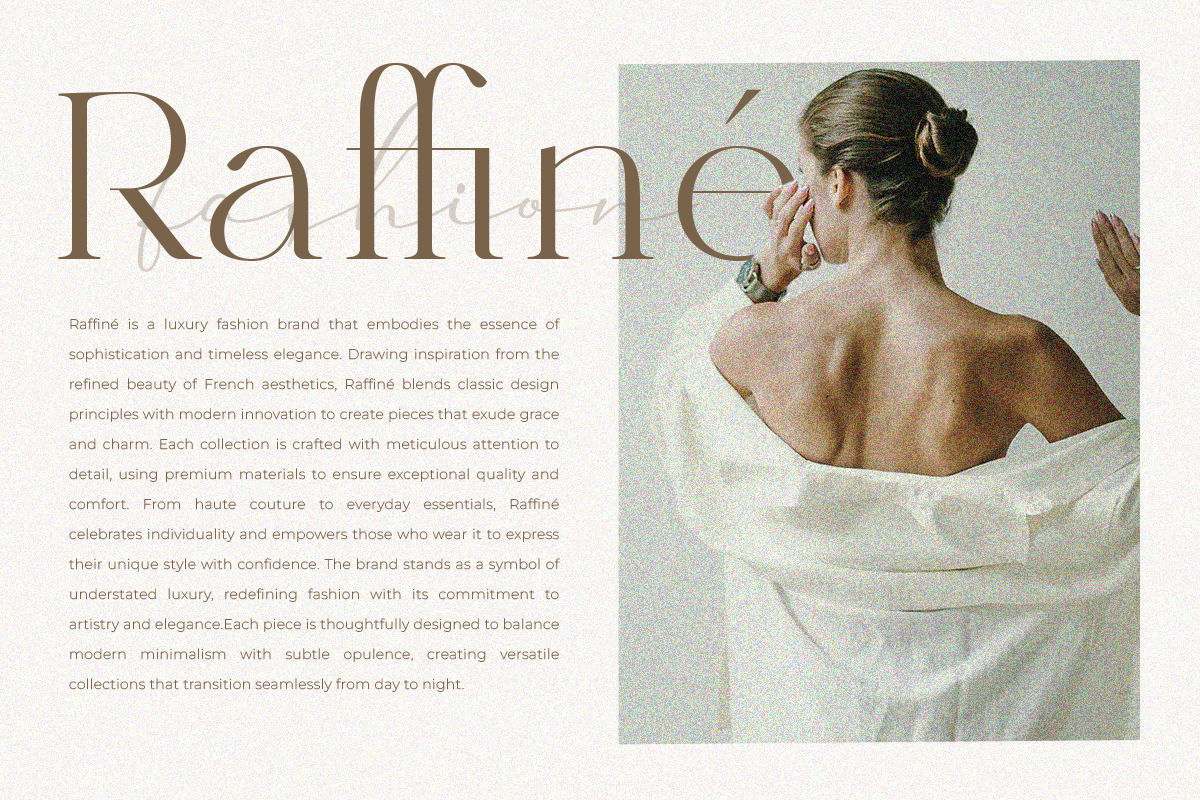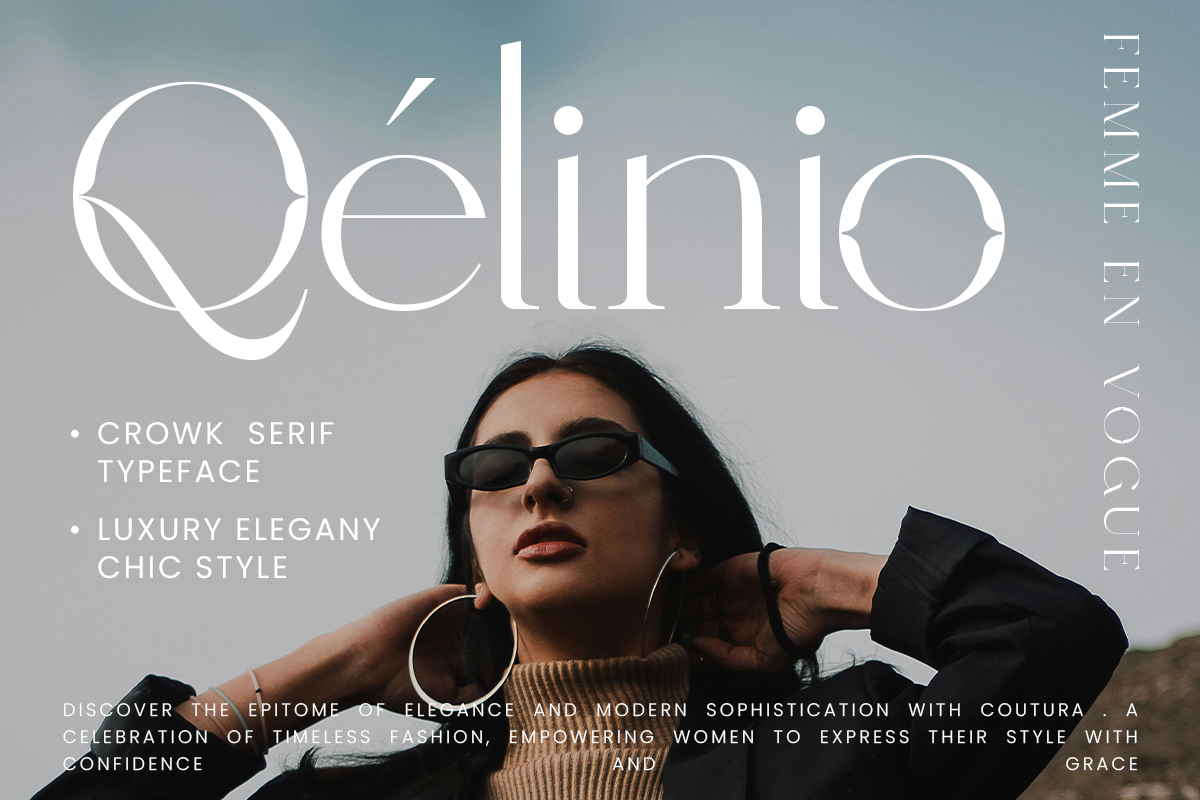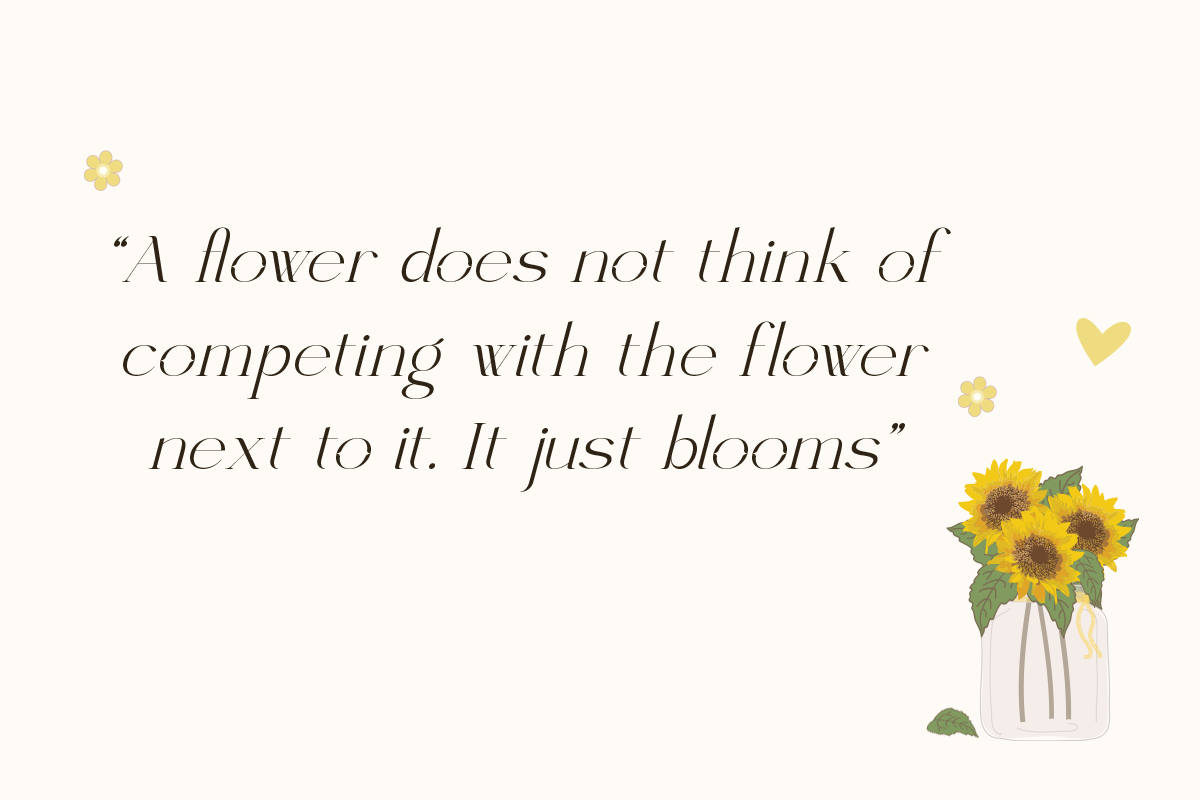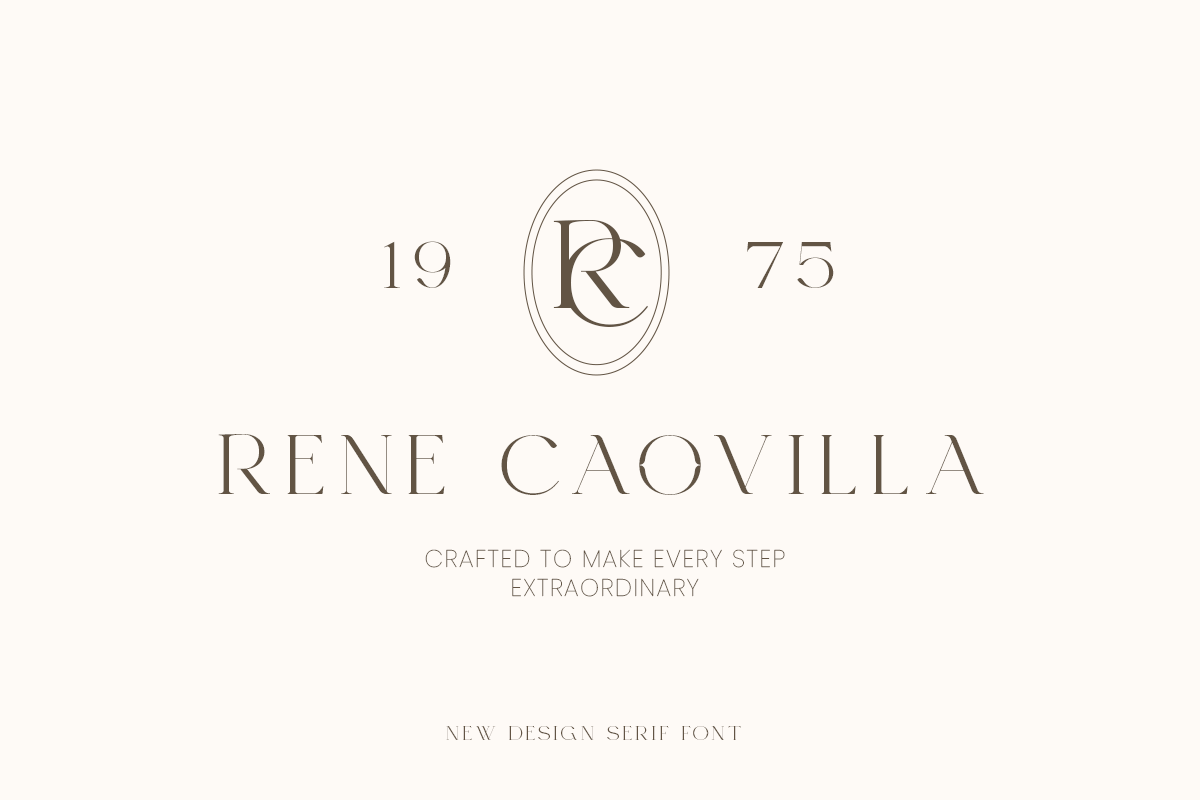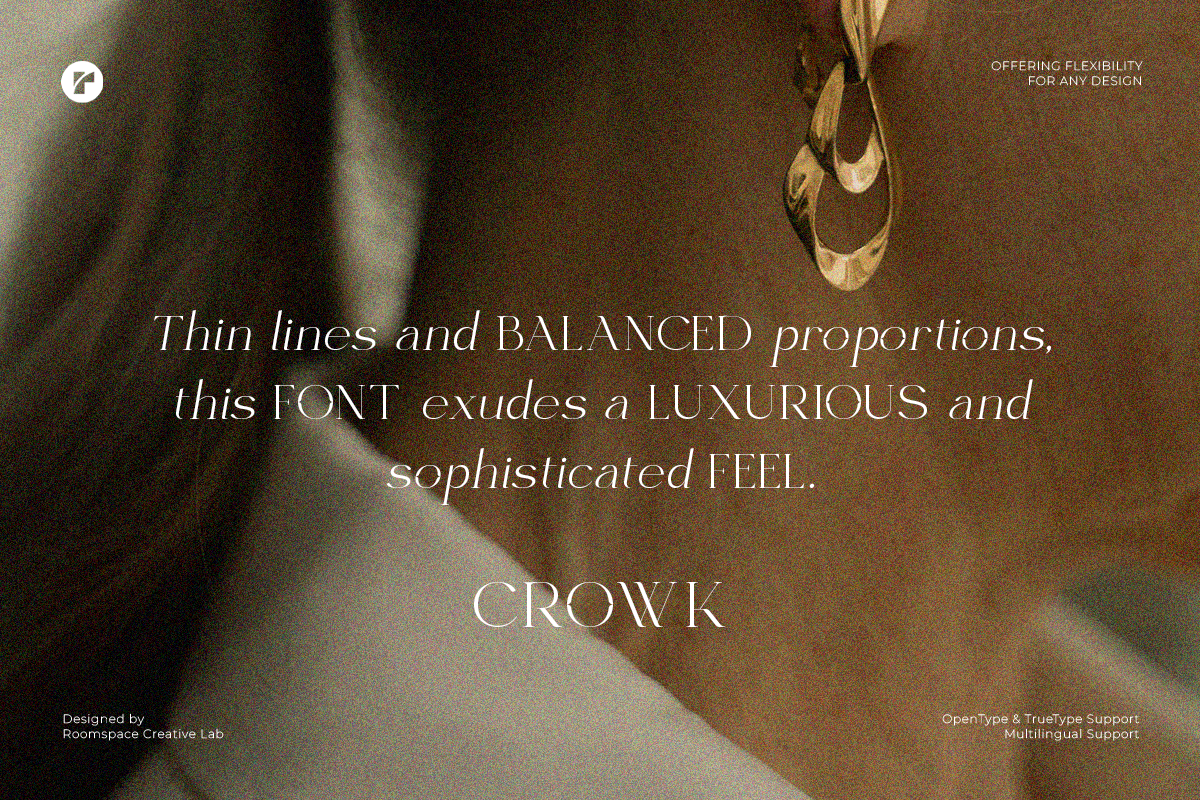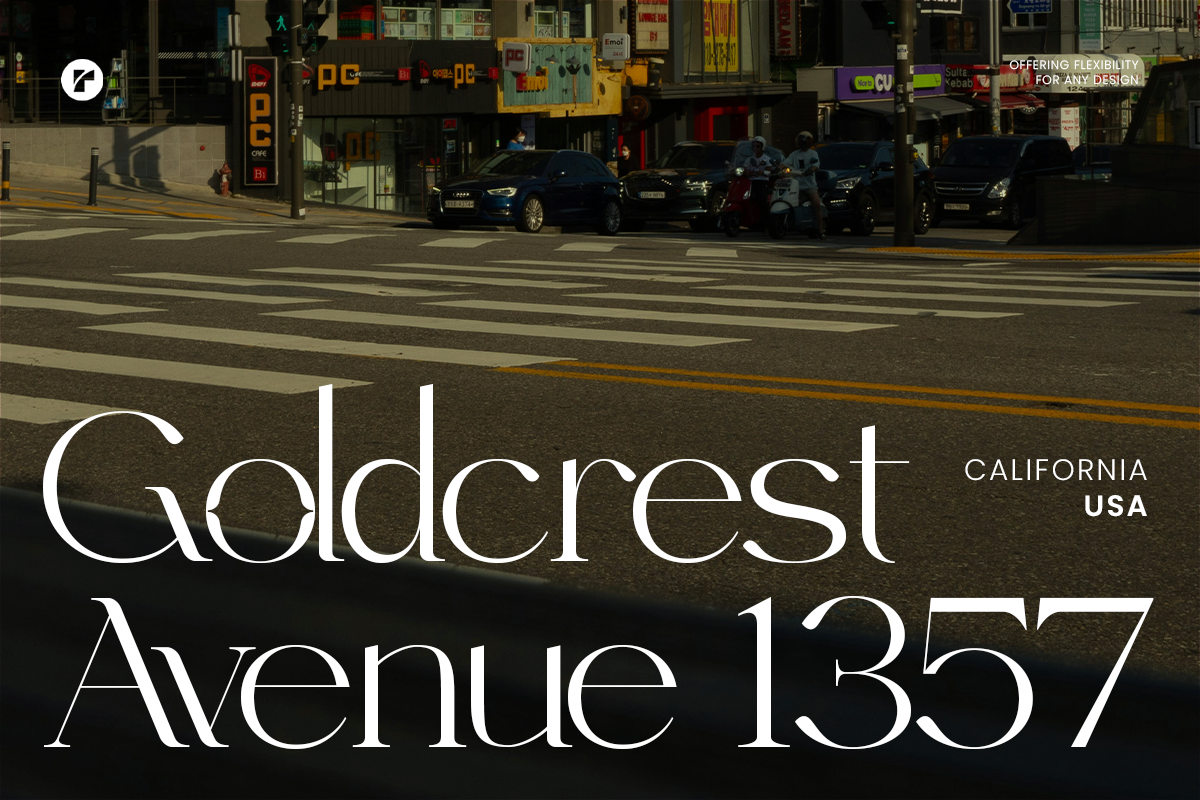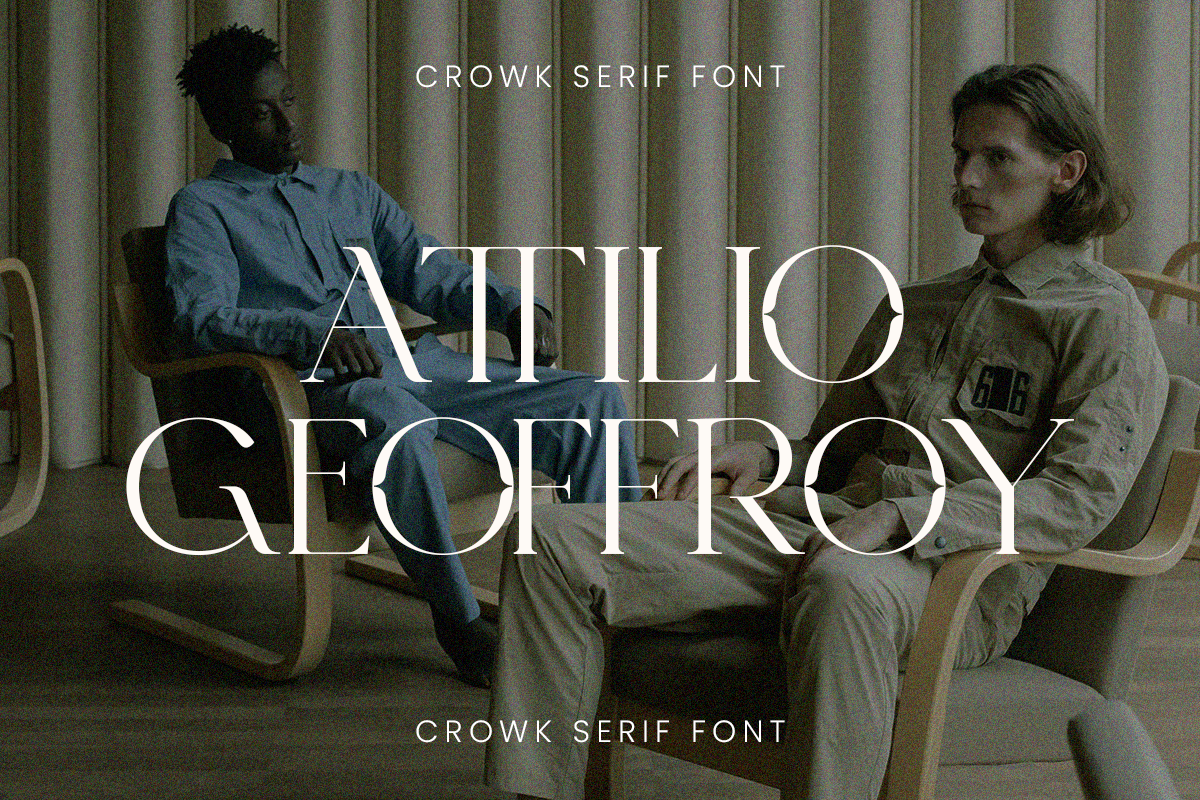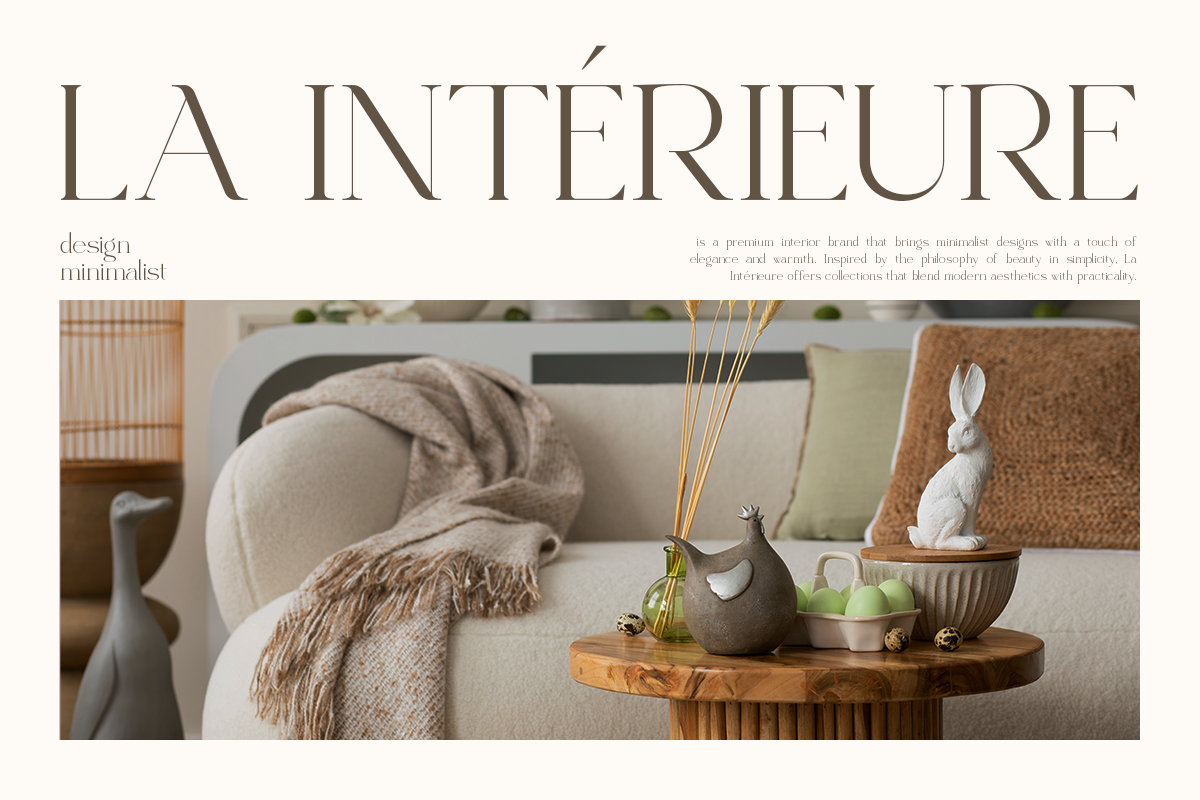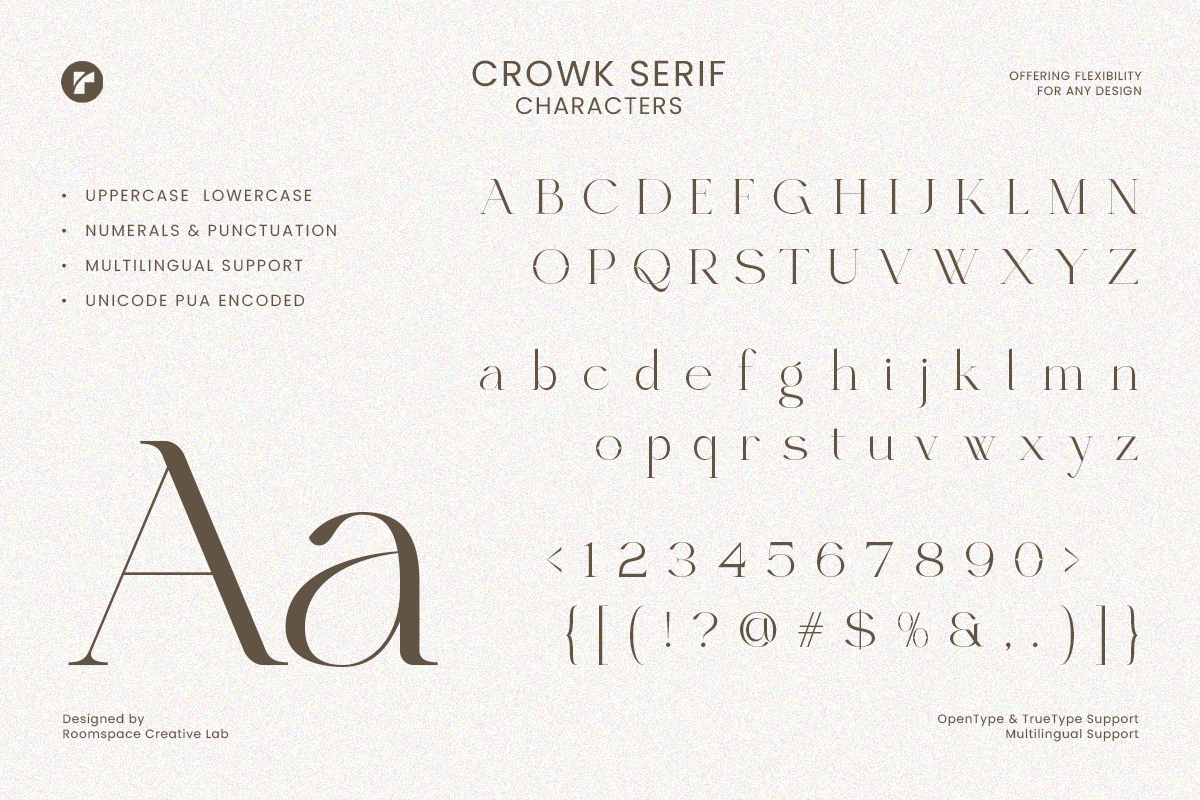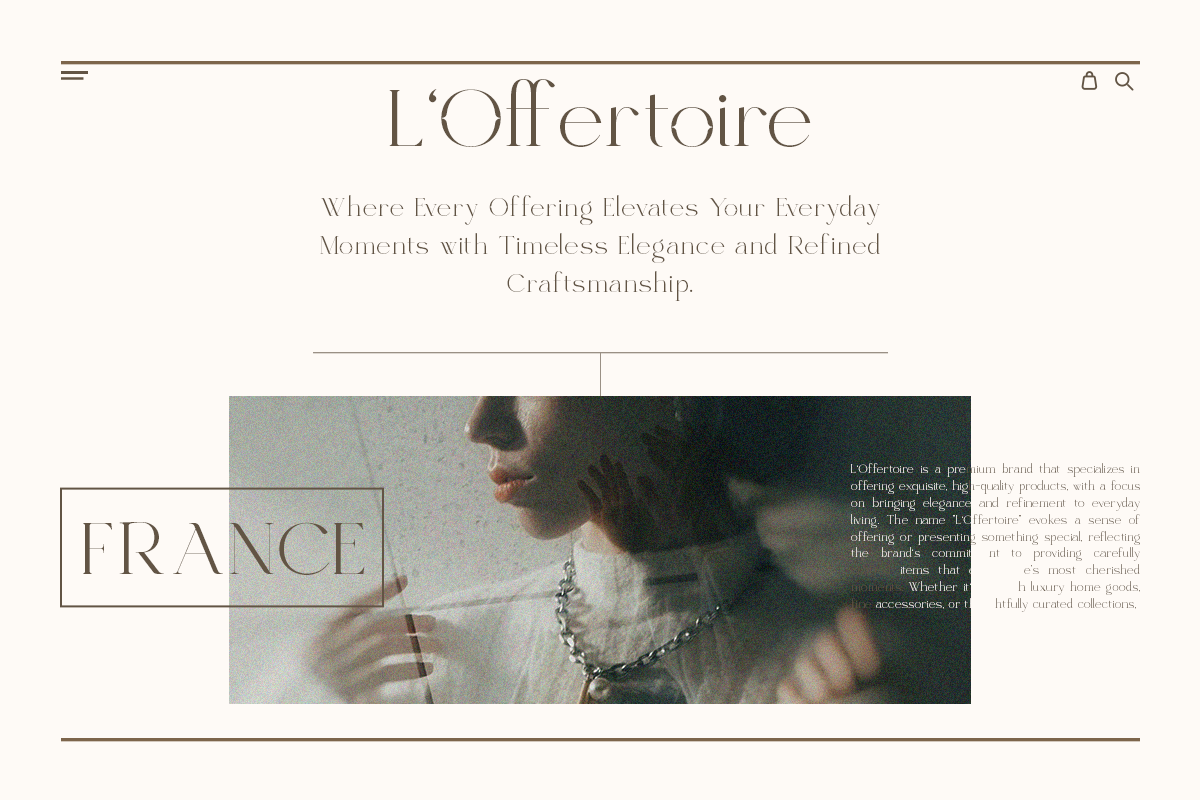
Crowk - A Luxury and Timeless Serif
Crowk is a luxury serif font designed to bring sophistication and grace to your high-end design projects. Inspired by the timeless allure of classic elegance, Crowk seamlessly blends modern aesthetics with a touch of refined charm. Perfect for creating stunning logos, upscale branding materials, and editorial layouts, this typeface is an excellent choice for designers aiming to make a statement of class and distinction.
Crowk was born from a passion for sophisticated design and attention to detail. Every curve and serif was carefully crafted to evoke elegance and balance, offering versatility across a wide range of creative projects. Whether you're working on luxury branding, wedding invitations, fashion editorials, or packaging for premium products, Crowk delivers a harmonious blend of style and functionality that elevates every project it touches.
Why Choose Crowk? Unique Serif Type Font: Offers a creative and modern take on classic serif styles. Versatile Applications: Perfect for logos, invitations, editorial designs, and more. Stylish Aesthetic: Adds sophistication and charm to your projects.